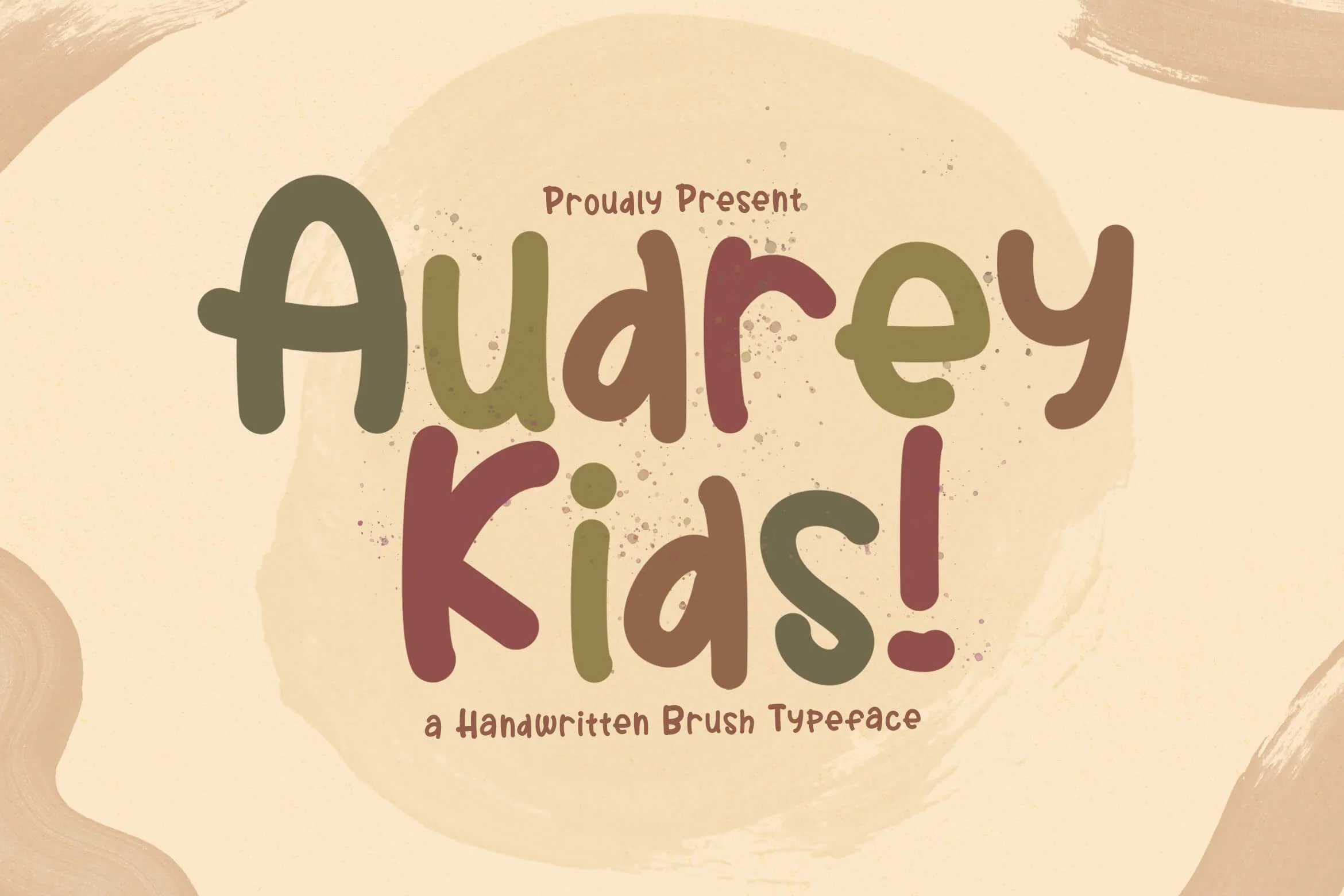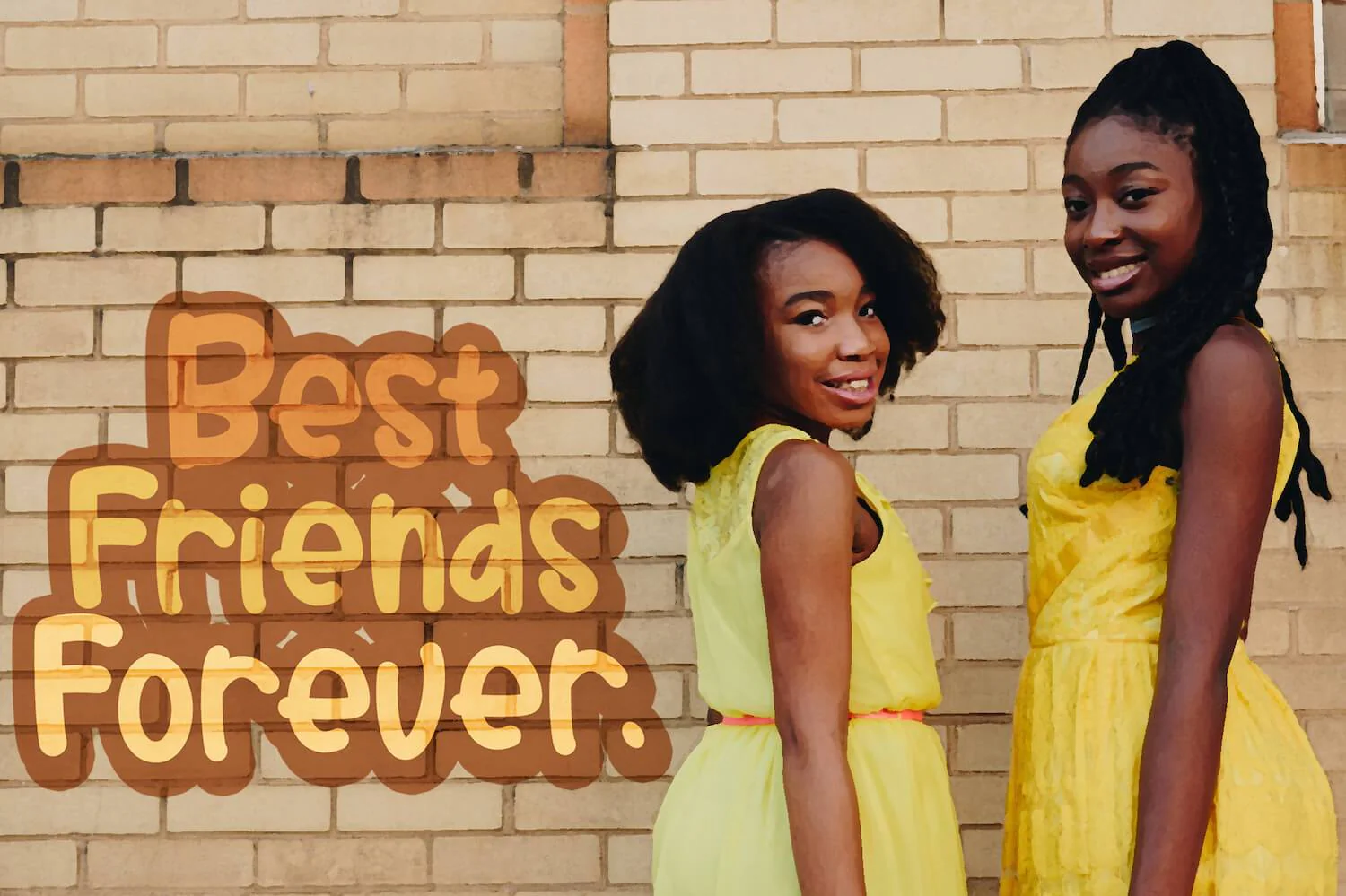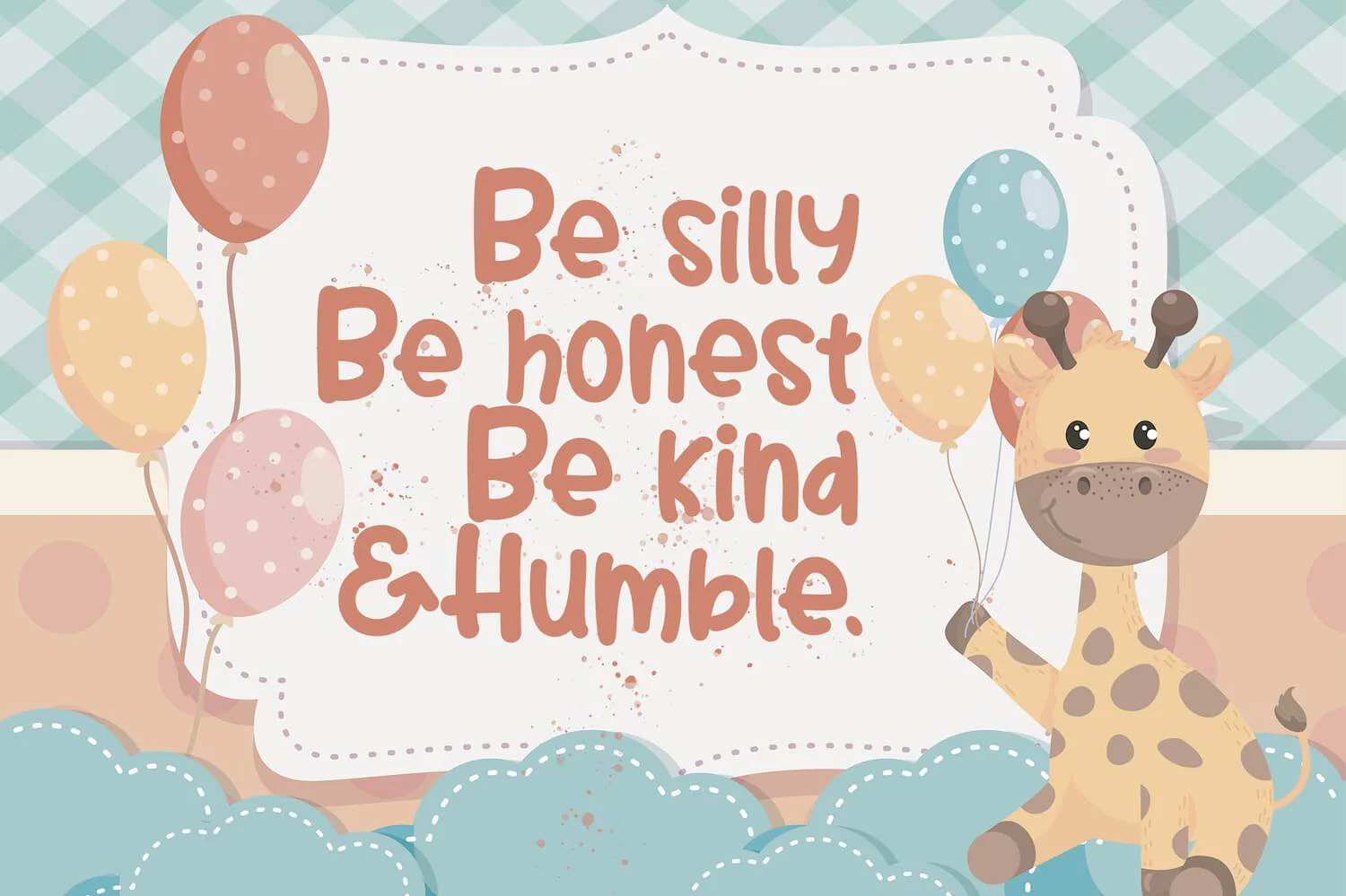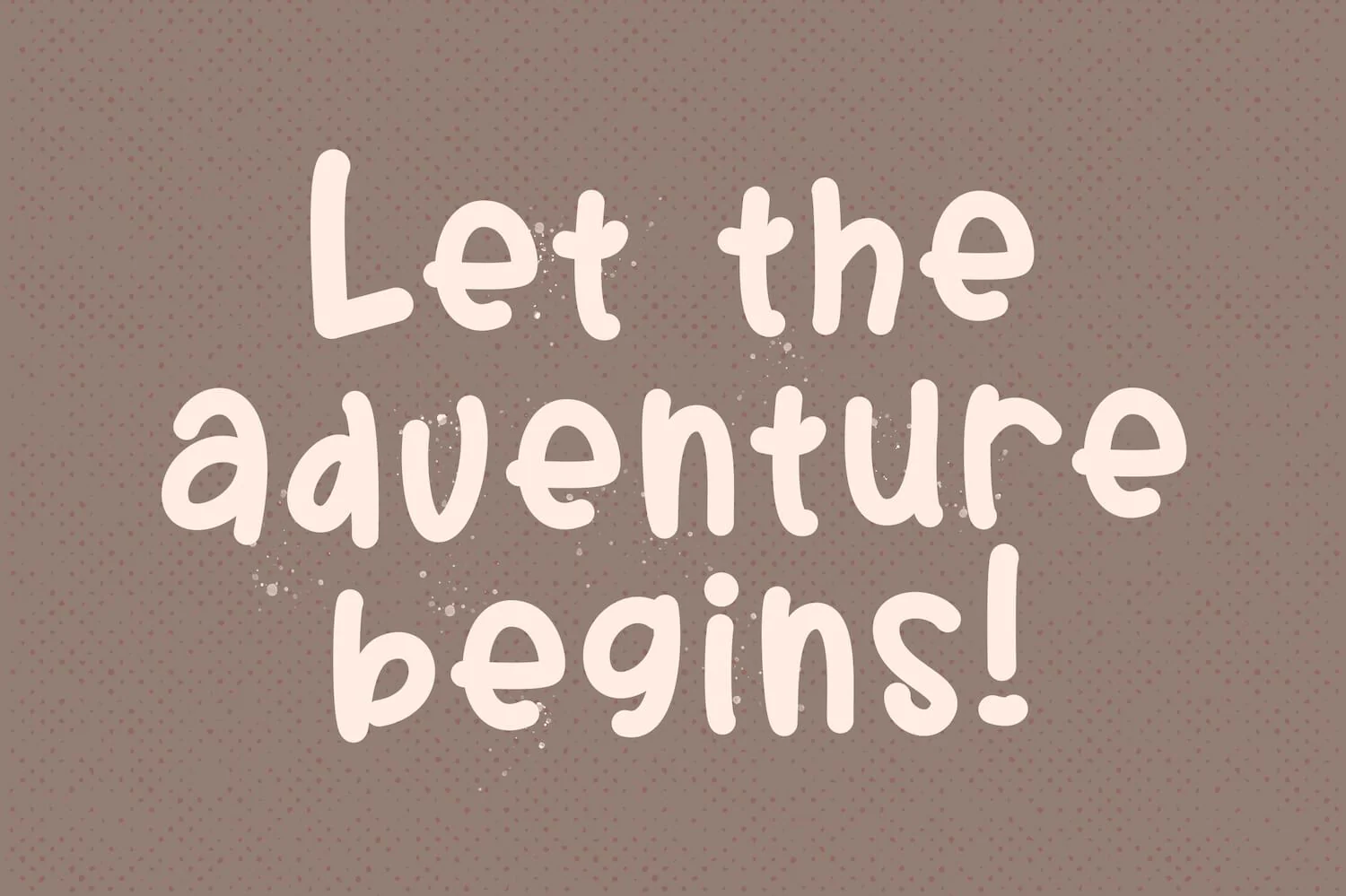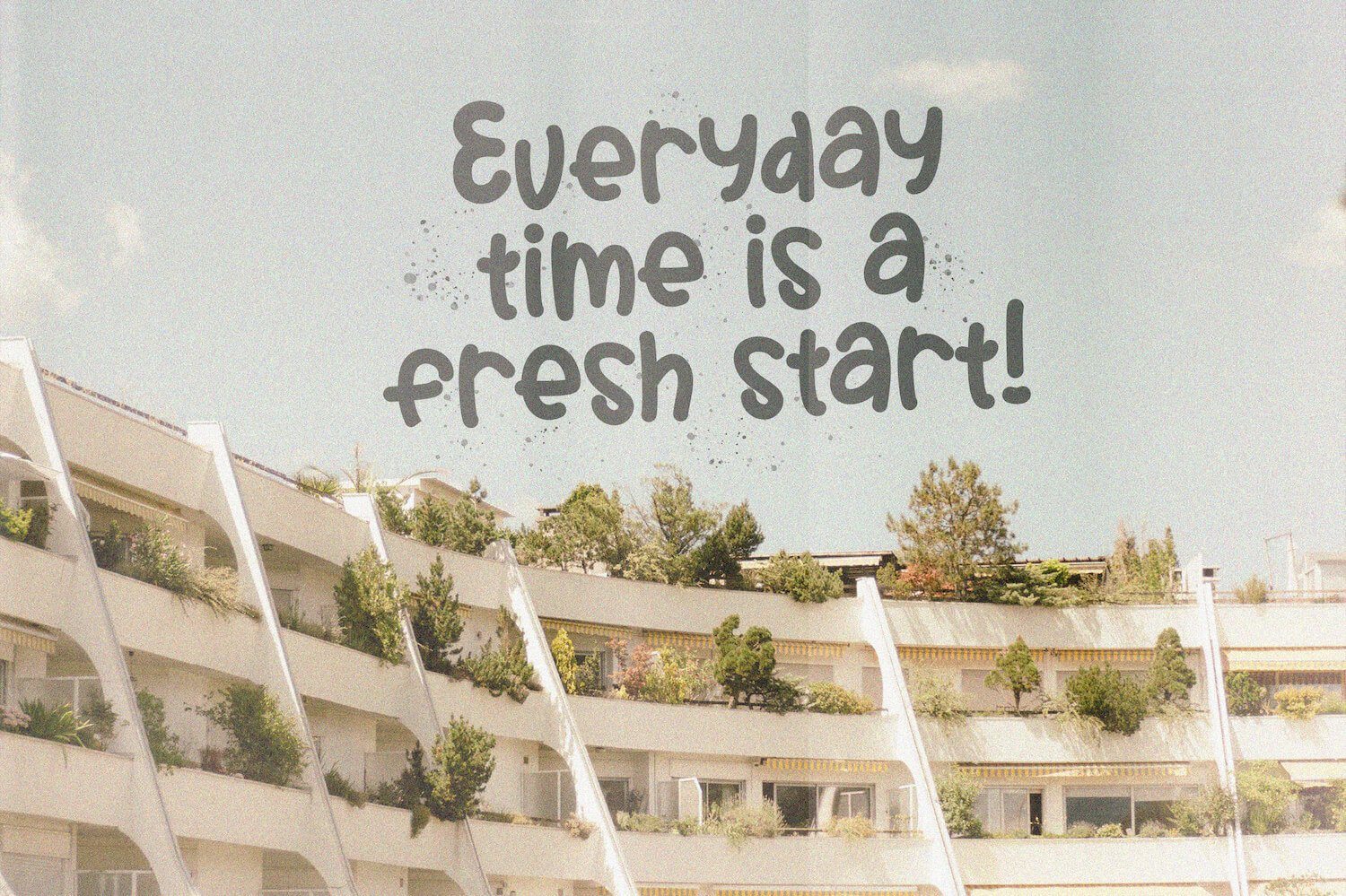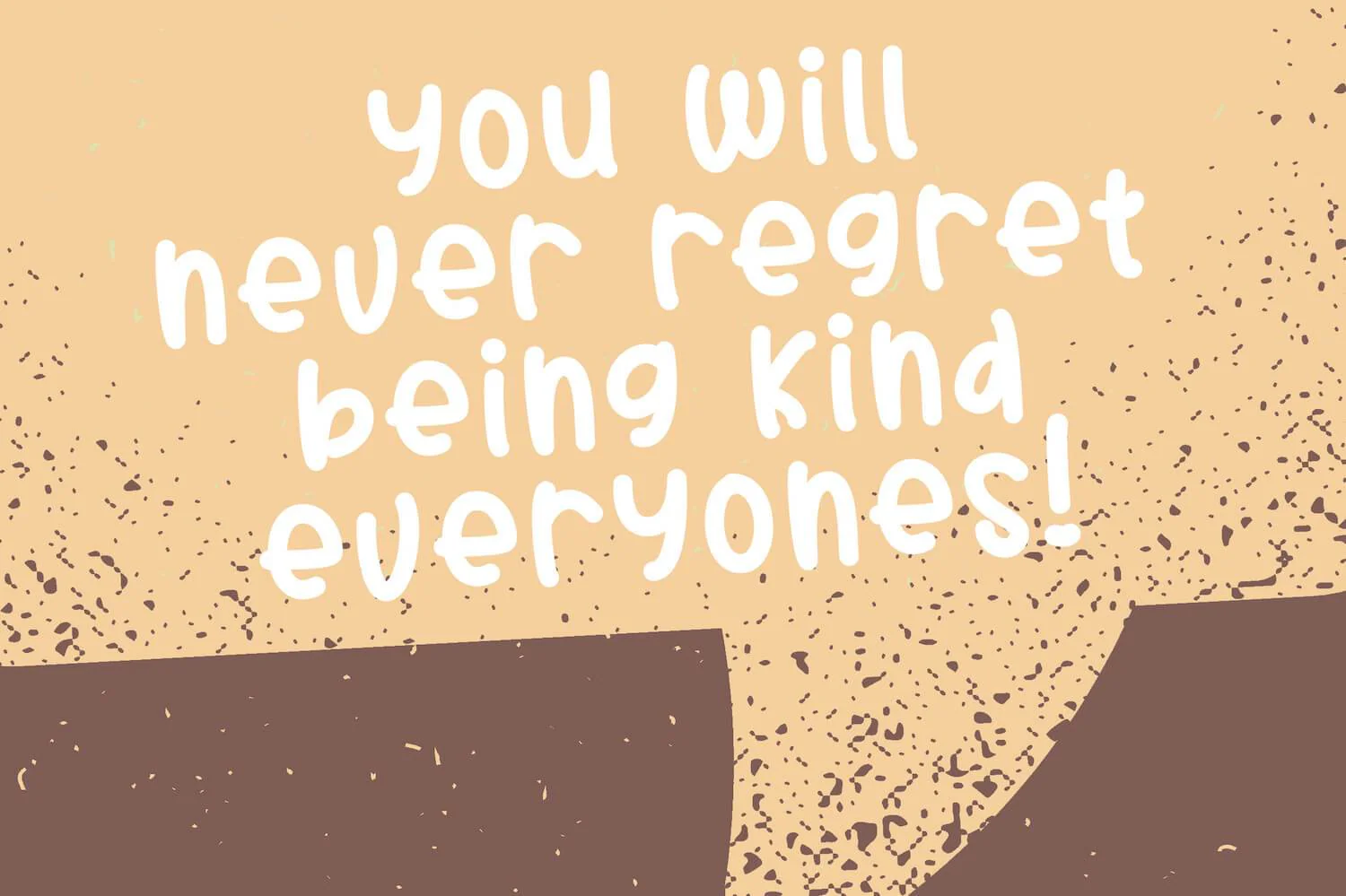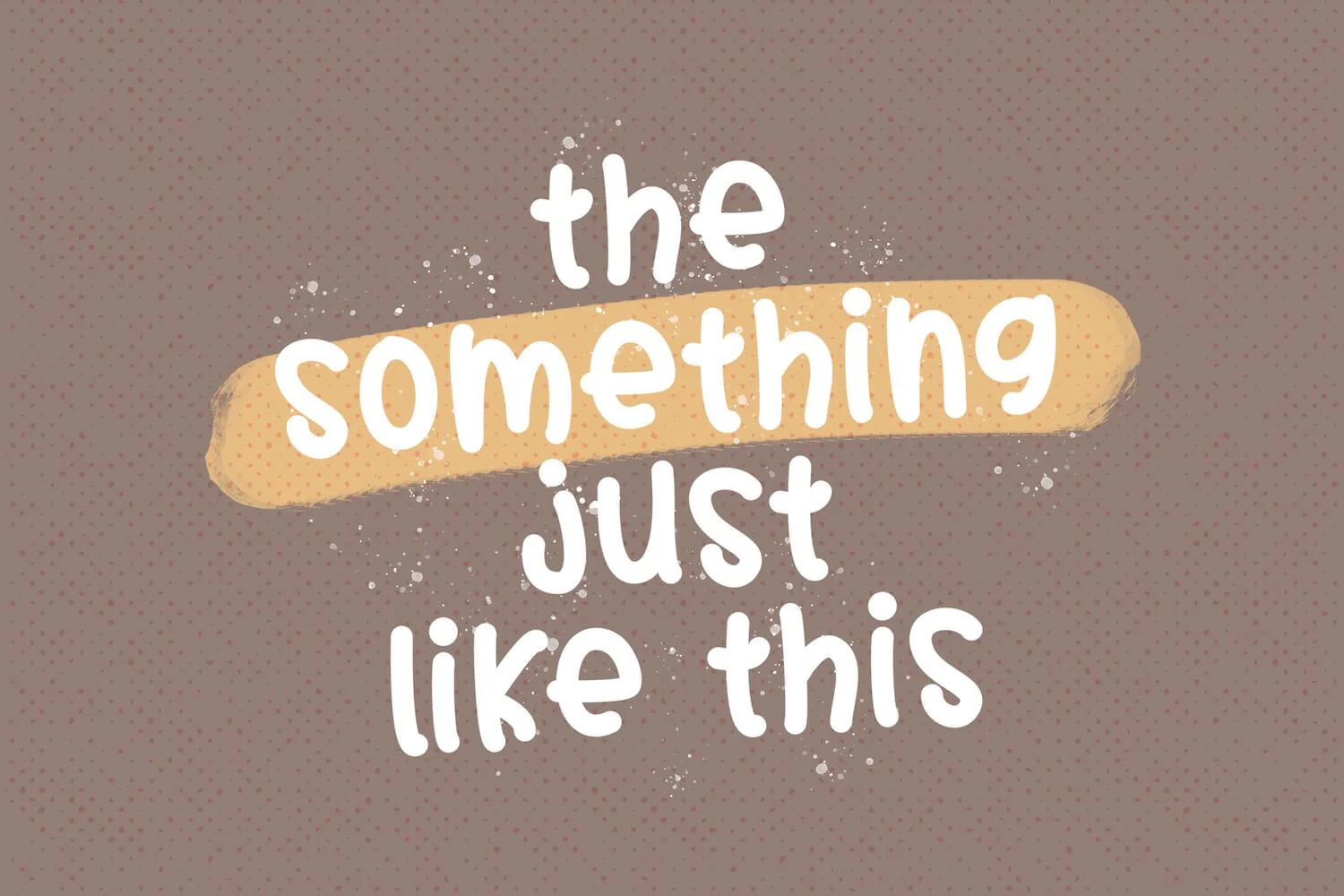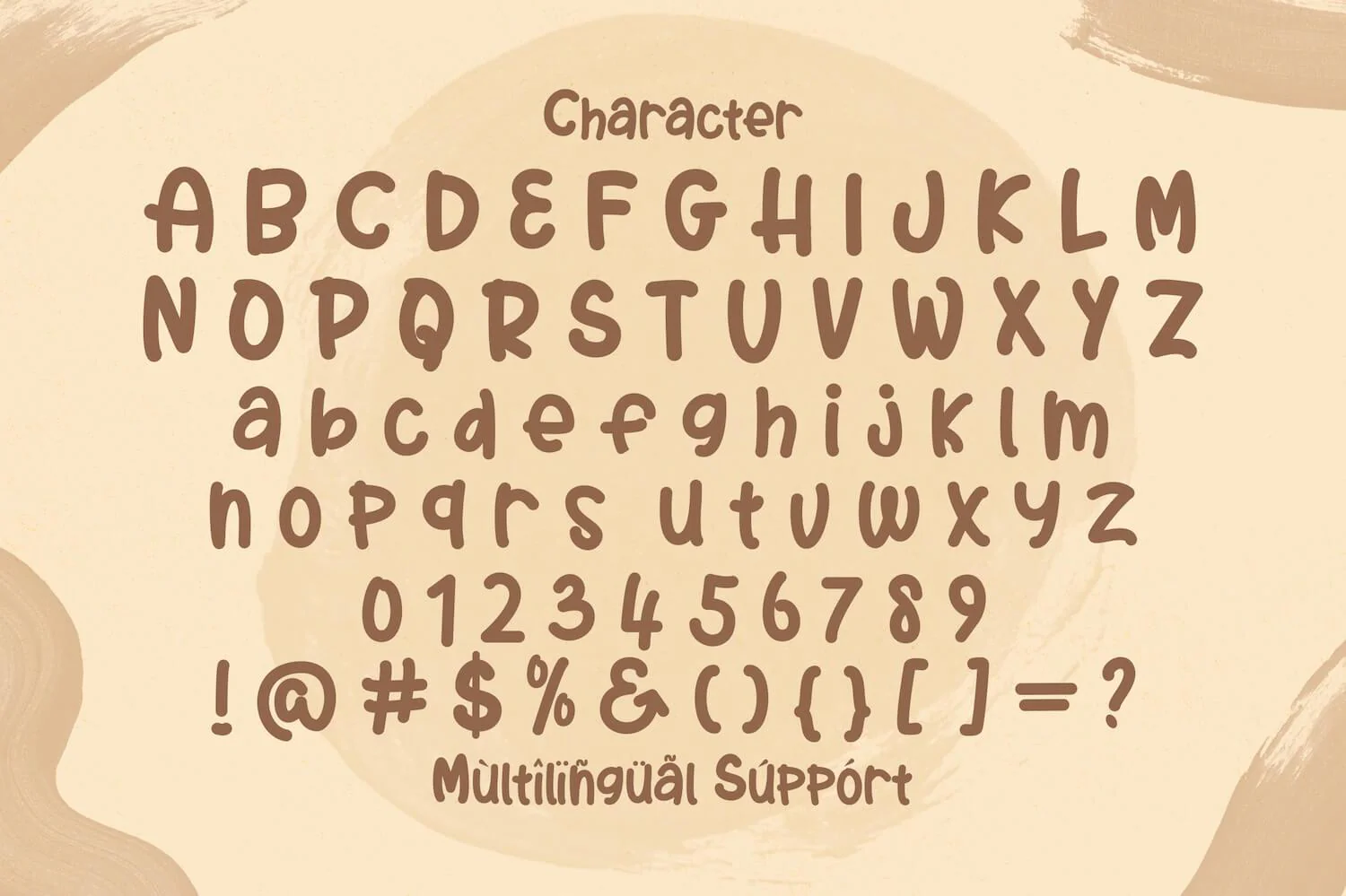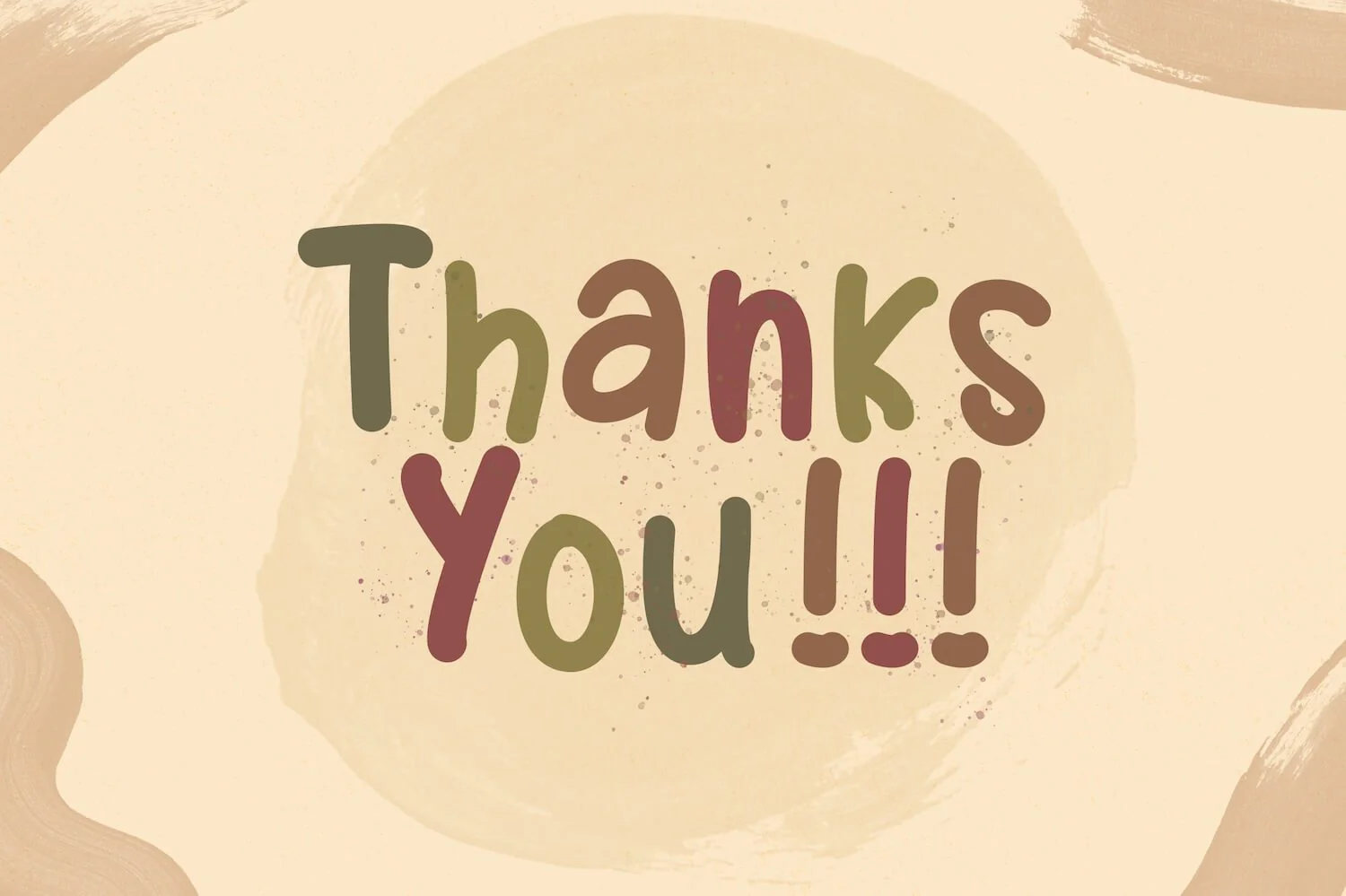
Audrey Kids - Playful Display Font
Introducing Audrey Kids - Playful Display Font
Audrey Kids is a fun display font. Playful and fresh, this font will be a hit for each of your children or school projects!
Introducing Audrey Kids - Playful Display Font
Audrey Kids is a fun display font. Playful and fresh, this font will be a hit for each of your children or school projects!